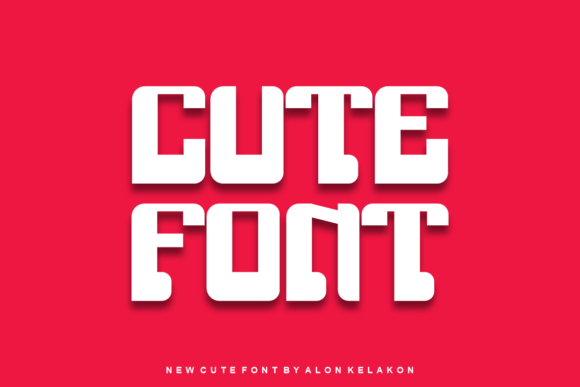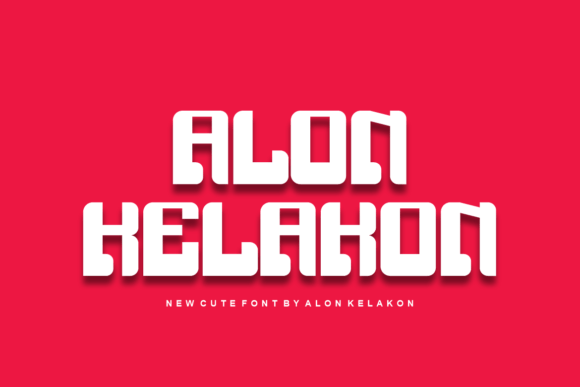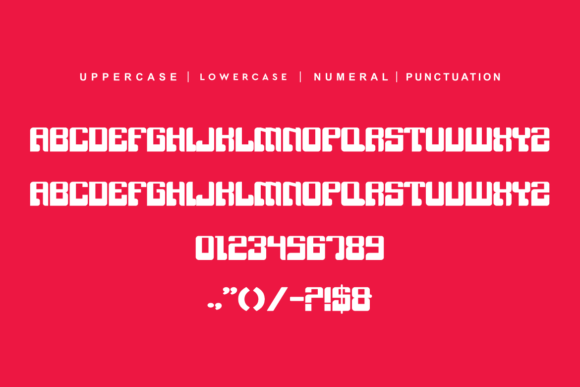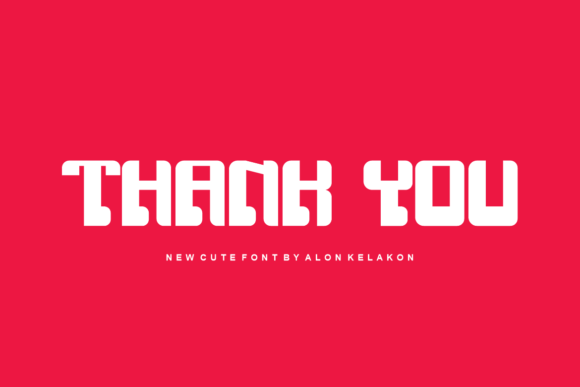
Bunggo Font: Elevate Your Designs with a Cool and Modern Display Font
In the world of typography, a font can make or break a design. It’s the foundation upon which your creative ideas are built, and the right choice can elevate your project to new heights. If you’re on the hunt for a font that embodies coolness and modernity, look no further than Bunggo. This stunning display font is crafted to capture your imagination and bring your designs to life in ways you never thought possible.
The Essence of Bunggo Font
Bunggo is not just another font; it’s an experience. Masterfully designed to become a true favorite among designers and crafters, Bunggo brings a unique blend of style and versatility to the table. Its cool and modern aesthetic makes it perfect for projects that demand a fresh and contemporary look. Whether you’re working on a branding project, a website, or marketing materials, Bunggo has the potential to transform your ideas into something truly remarkable.
Key Features of Bunggo Font
- Modern Aesthetic: Bunggo boasts a sleek and modern design that instantly adds a touch of sophistication to any project.
- Versatility: From digital displays to print materials, Bunggo’s versatility knows no bounds. It’s designed to perform exceptionally across various mediums.
- Easy to Read: Despite its modern and stylized appearance, Bunggo remains highly legible, ensuring your message is communicated effectively.
- Creative Freedom: With Bunggo, your creative possibilities are endless. It’s a font that encourages experimentation and innovation.
Bunggo font is more than just a typeface; it’s a tool that can transform your creative projects. With its cool and modern vibe, versatility, and readability, Bunggo is poised to become your go-to font for designs that demand a bit of flair and a lot of impact. Whether you’re a seasoned designer or a crafty DIY enthusiast, Bunggo invites you to explore new creative horizons. So why wait? Dive into the world of Bunggo and discover how this fantastic font can elevate your designs to the highest level!